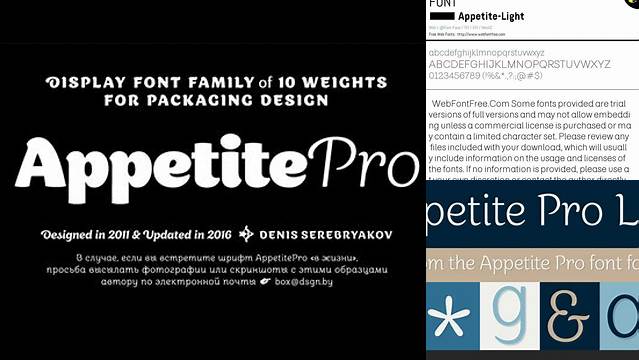
Appetite Pro Light Font: Free Download Guide
Hey guys! Are you on the hunt for a sleek, modern font to give your projects that extra oomph? Then let's talk about the Appetite Pro Light font. It's a fantastic choice for designers, creatives, and anyone who loves a clean, contemporary typeface. In this article, we're diving deep into what makes Appetite Pro Light so special, where you can find it for free, and how to use it effectively in your designs. So, buckle up and let's get started!
What Makes Appetite Pro Light So Appealing?
Appetite Pro Light is more than just a font; it's a versatile tool that can elevate your designs. Its clean lines and minimalist aesthetic make it perfect for a wide range of applications. Think about logos, websites, brochures, and even social media graphics. This font has a certain je ne sais quoi that makes it stand out without being too flashy. It’s the kind of font that whispers elegance, making it ideal for projects that need a touch of sophistication. The beauty of Appetite Pro Light lies in its simplicity. Its uncluttered design ensures readability across various sizes and mediums, making it a reliable choice for both print and digital projects. Whether you’re designing a sleek website or a professional business card, this font ensures your message is delivered with clarity and style. Moreover, the font’s neutrality allows it to pair well with a variety of other fonts, giving you the flexibility to create unique and visually appealing combinations. You can use it as a primary font for headings and body text, or as a secondary font to complement a bolder, more expressive typeface. The possibilities are endless, and that’s what makes Appetite Pro Light such a valuable asset in any designer’s toolkit. The subtle curves and balanced letterforms of Appetite Pro Light contribute to its overall appeal. It's a font that feels both modern and timeless, making it a smart choice for projects that need to stand the test of time. In a world where design trends come and go, Appetite Pro Light offers a sense of enduring style. Its versatility and elegance make it a go-to font for designers looking to create a lasting impression. From minimalist websites to elegant print materials, Appetite Pro Light can help you achieve a polished and professional look. So, if you're looking for a font that combines simplicity, elegance, and versatility, Appetite Pro Light is definitely worth considering. Its clean design and timeless appeal make it a standout choice for a wide range of projects.